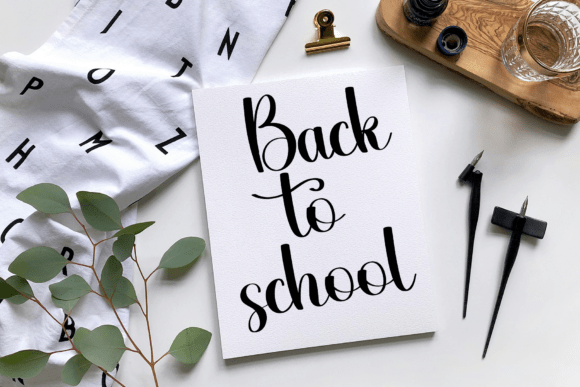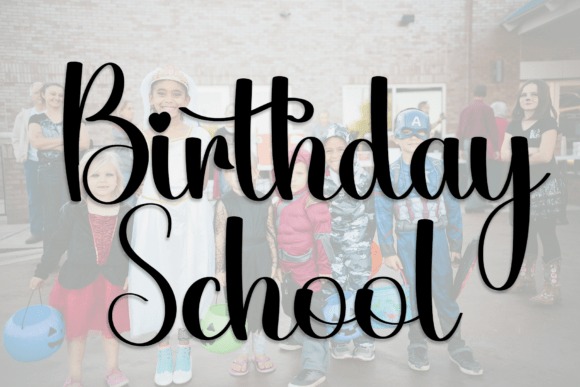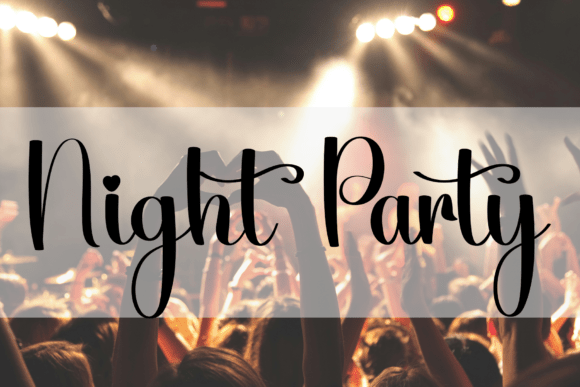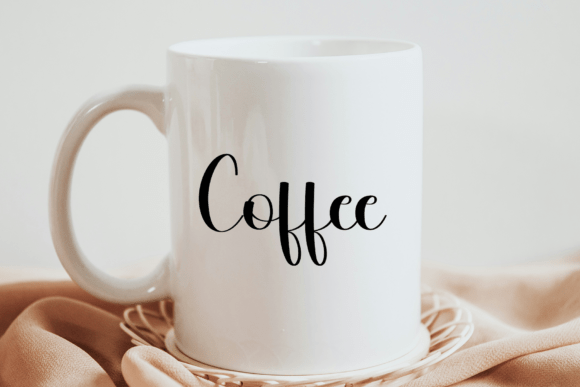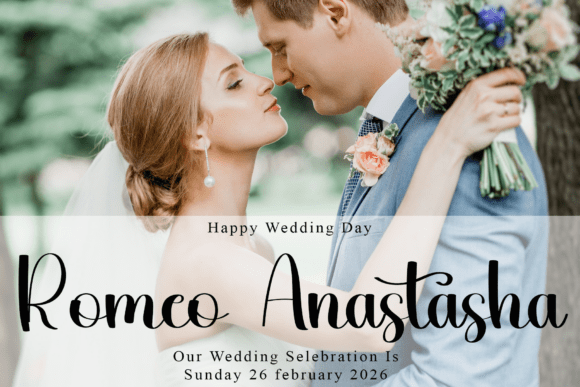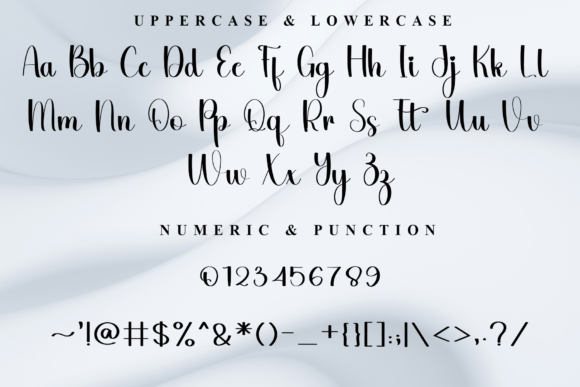
Introducing Birthday Party Font: The Perfect Addition to Your Design Collection
Are you tired of using the same old fonts for your personal projects, invitations, and social media graphics? Look no further! The Birthday Party font is here to add a touch of warmth and friendliness to your designs. This casual and creative font is perfect for anyone looking to create a relaxed and approachable feel in their work.
The Characteristics of Birthday Party Font
The Birthday Party font boasts round, playful strokes that give it a unique and charming aesthetic. Its hand-drawn look and feel make it perfect for adding a fun and personal touch to any design. Whether you’re creating a birthday invitation, a social media graphic, or a personal project, this font is sure to make your work stand out.
What Makes Birthday Party Font So Versatile?
The Birthday Party font is a must-have for designers and crafters alike. Its unique and charming aesthetic makes it perfect for adding a personal touch to any project. Whether you’re creating custom invitations, party decorations, or social media graphics, this font is sure to be a hit.
Tips and Tricks for Getting the Most Out of Birthday Party Font
Here are a few tips and tricks for getting the most out of the Birthday Party font:
- Experiment with different font sizes and colors to create a unique look.
- Use the font in combination with other fonts to create a fun and playful design.
- Add graphics and illustrations to your design to make it more visually interesting.
- Use the font to create custom invitations, party decorations, and social media graphics.
The Benefits of Using Birthday Party Font
There are many benefits to using the Birthday Party font in your designs. Here are a few:
- It’s easy to read and understand, making it perfect for use in a variety of different contexts.
- It’s versatile and can be used in a wide range of applications.
- It’s unique and charming aesthetic makes it perfect for adding a personal touch to any design.
The Birthday Party font is a must-have for designers and crafters alike. Its unique and charming aesthetic makes it perfect for adding a personal touch to any project. With its versatility, ease of use, and compatibility with a wide range of applications, it’s the perfect addition to your design collection.